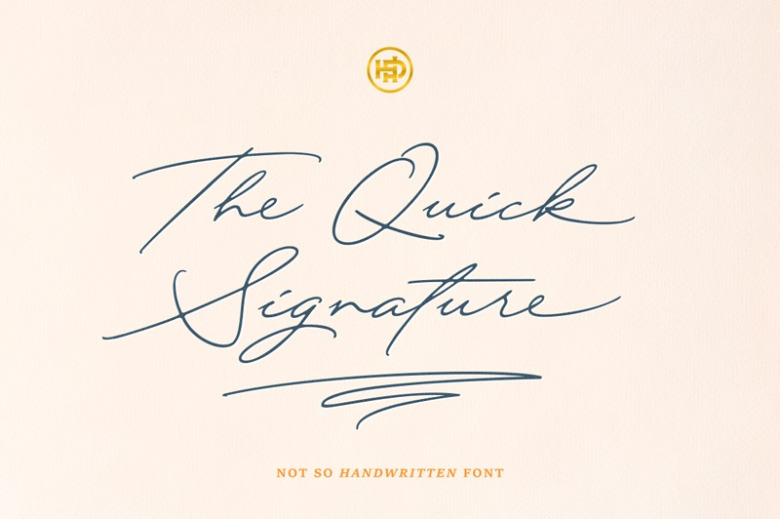
Quick Signature Font
Quick Signature is, as the name suggests, inspired by quick handwriting. Practically, this font was made by hand, lettering on an Ipad Pro with Apple Pencil. Things on my mind when i started to create this handwritten font is: this font has to be a good lookingyet elegant, and will bring a good harmony when the letters are connected and paired each other.